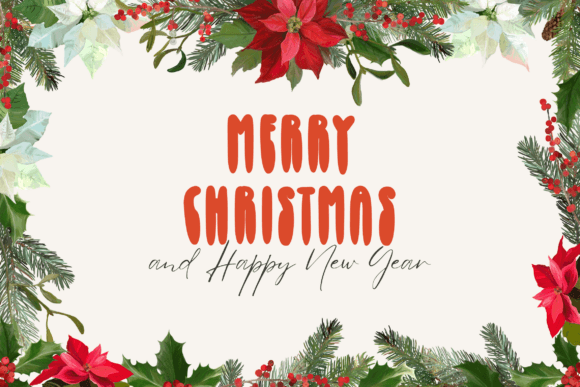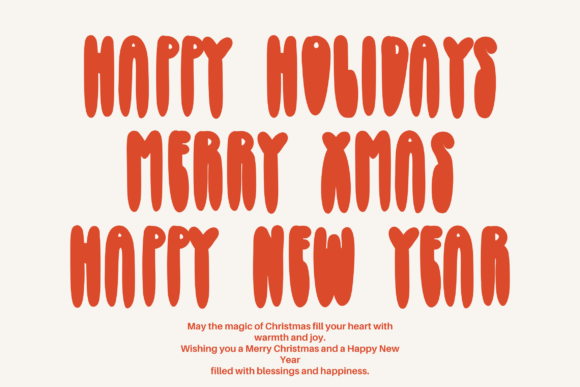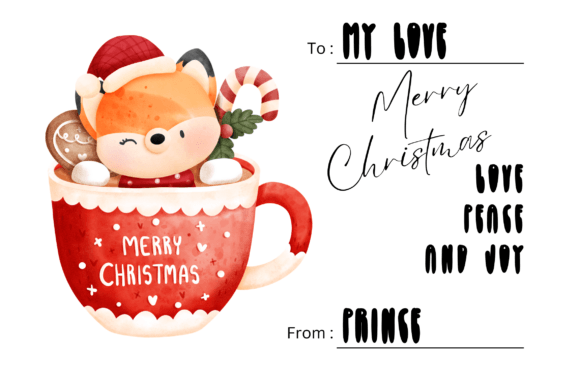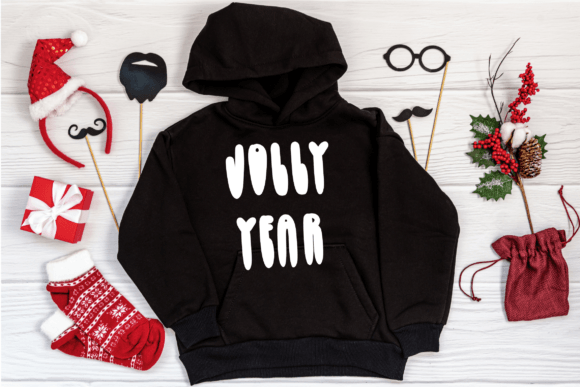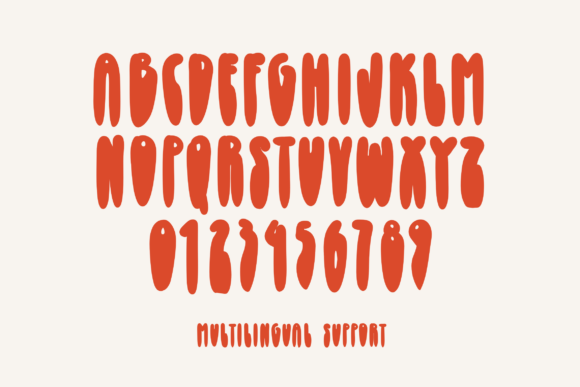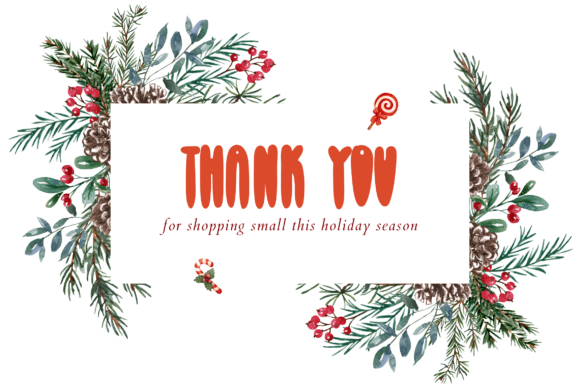
Introduction to Chirstmas Condense Font
As the snowflakes gently fall outside, and the fireplace crackles to life, I find myself itching to create something special – a festive design that captures the essence of the holiday season. It’s moments like these that I cherish, and that’s exactly why I’m thrilled to introduce you to the enchanting Chirstmas Condense Font.
This exquisite typeface is a game-changer for designers looking to add a touch of magic to their creative projects. With its high-quality design and free download option, it’s an absolute must-have for anyone seeking to create stunning holiday graphics, cards, and invites. Whether you’re working on a festive campaign or simply want to add some holiday cheer to your social media posts, the Chirstmas Condense Font is the perfect design resource to have on hand.
Key Features of Chirstmas Condense Font
- High-quality, vector-based font design for creative projects
- Includes a wide range of characters, including uppercase and lowercase letters, numbers, and special symbols
- Designed with a unique, condensed style, perfect for creating festive and modern designs
Honest Review: Chirstmas Condense Font
As a designer, I’m always on the lookout for high quality design resources to enhance my creative projects. The Chirstmas Condense Font caught my eye, and I was excited to try it out.
What works well: ✨ The font is available for free download, which is a major plus for designers on a budget. The design itself is quite unique and festive, perfect for holiday-themed projects. The transparent background option is also a great feature, allowing for easy integration into various design settings.
- High quality design that’s perfect for creative projects
However, there are a few limitations: ⚠️ The font is quite limited in terms of styles and sizes, which may not be suitable for complex designs. Additionally, the font’s legibility can be affected by the background color, which may require some tweaking.
Overall, I’d say the Chirstmas Condense Font is a solid addition to any designer’s toolkit. While it may not be the most versatile font, its unique design and free download make it a great resource for holiday-themed projects or other creative endeavors.
Tips and Use Cases
Some common use cases for the Chirstmas Condense Font include designing holiday-themed graphics, creating invitations, and developing branding materials. Tips for getting the most out of the font include experimenting with different font sizes and styles, and using the font in conjunction with a transparent background to create a seamless design.